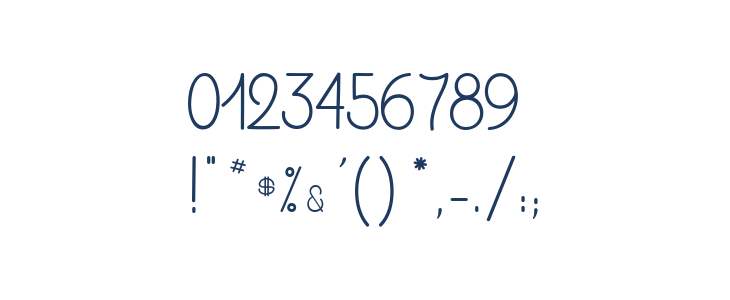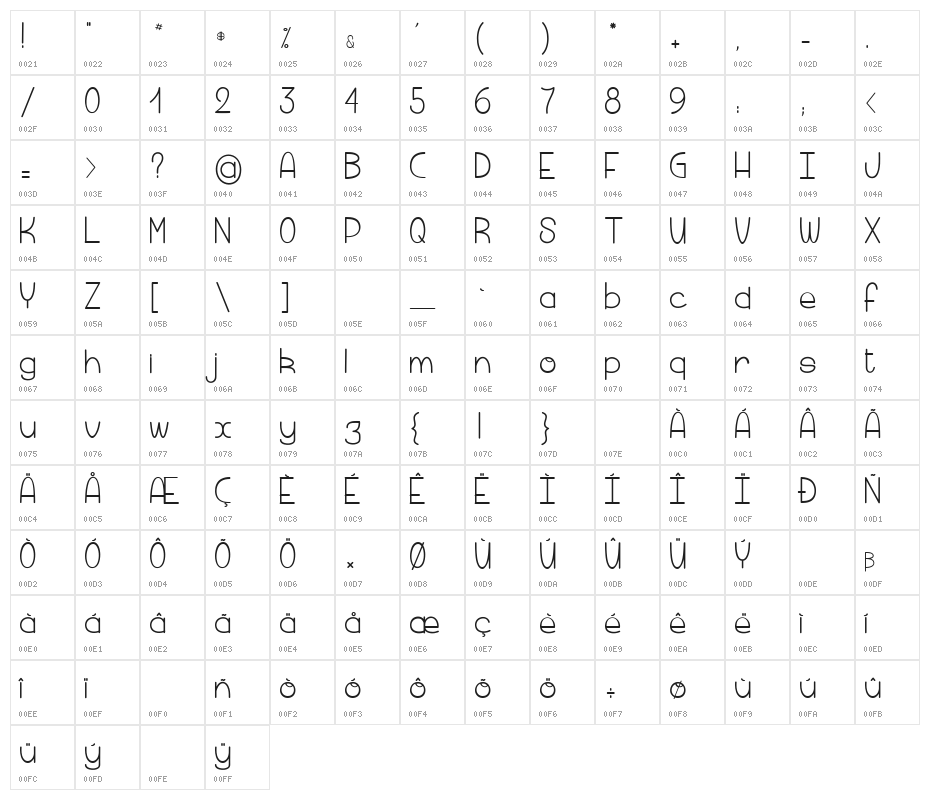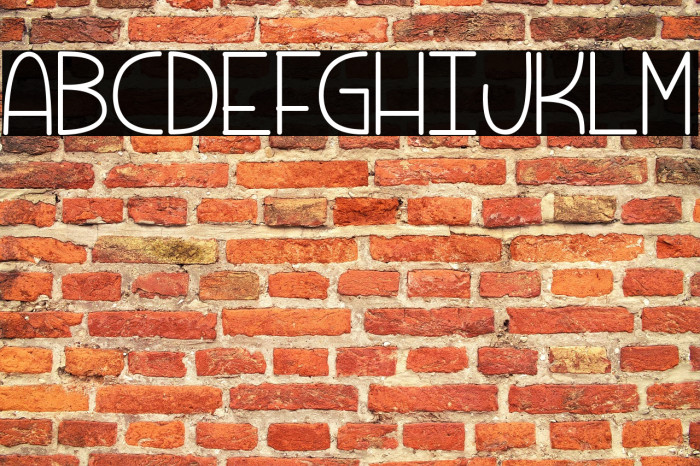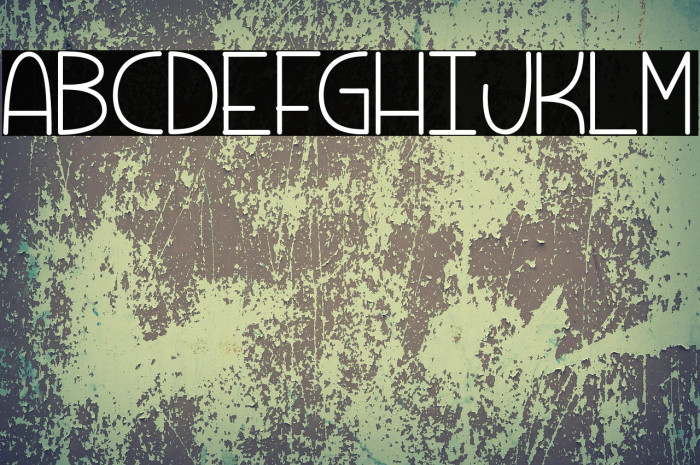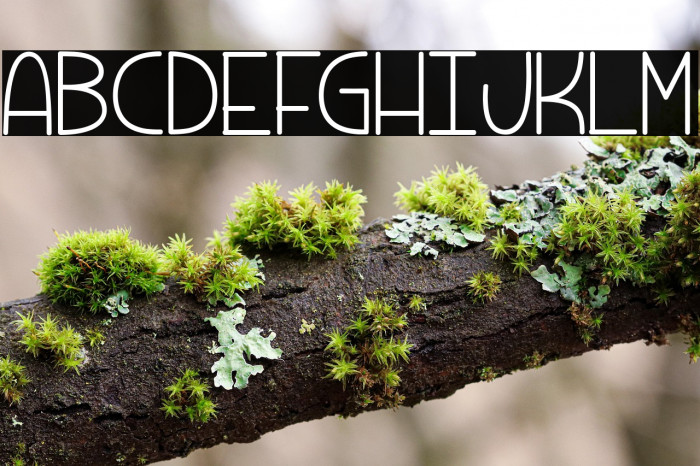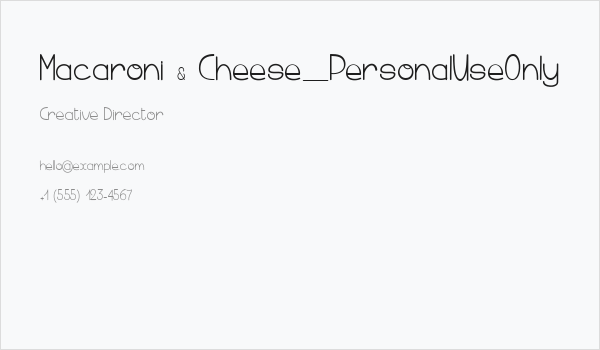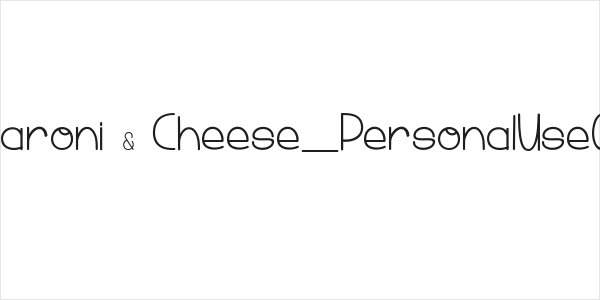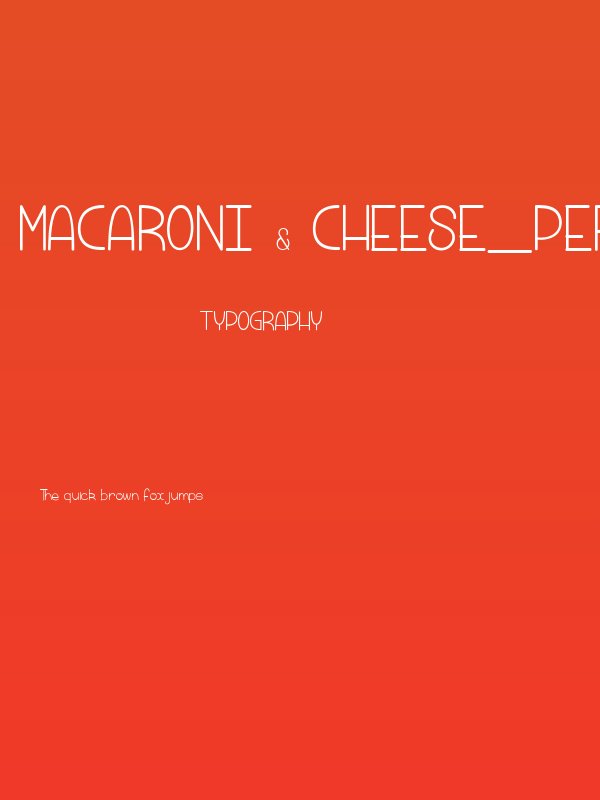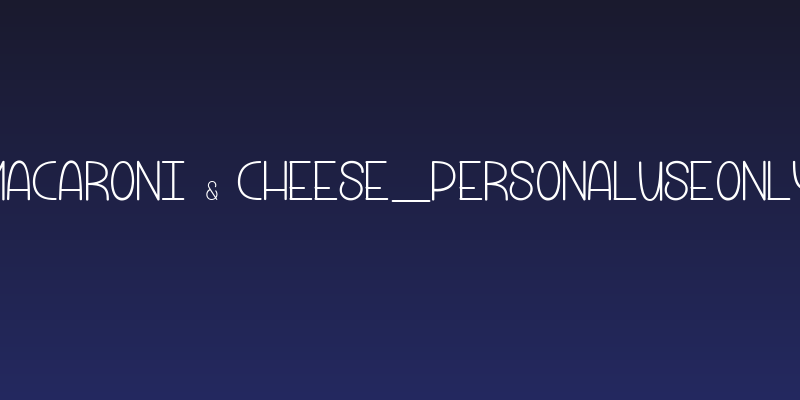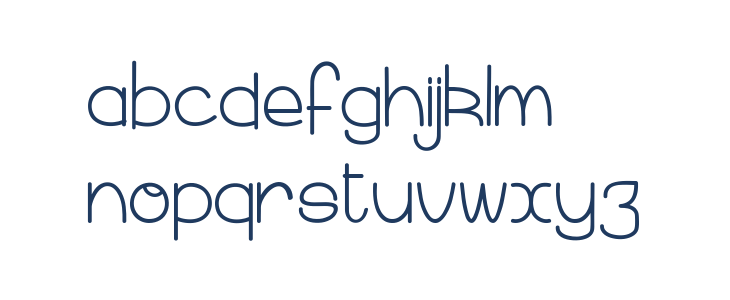
Macaroni & Cheese_PersonalUseOnly Font
Macaroni & Cheese_PersonalUseOnly Description
This playful and whimsical font features rounded, smooth edges and a casual, handwritten style. The letters are evenly spaced with a consistent stroke width, giving it a friendly and approachable appearance. The uppercase and lowercase letters maintain a uniform height, while the numerals and special characters blend seamlessly with the overall design. This font's simplicity and charm make it suitable for a variety of creative projects.
| Proposed Projects | Ideal for children's books, playful branding, greeting cards, and informal invitations. |